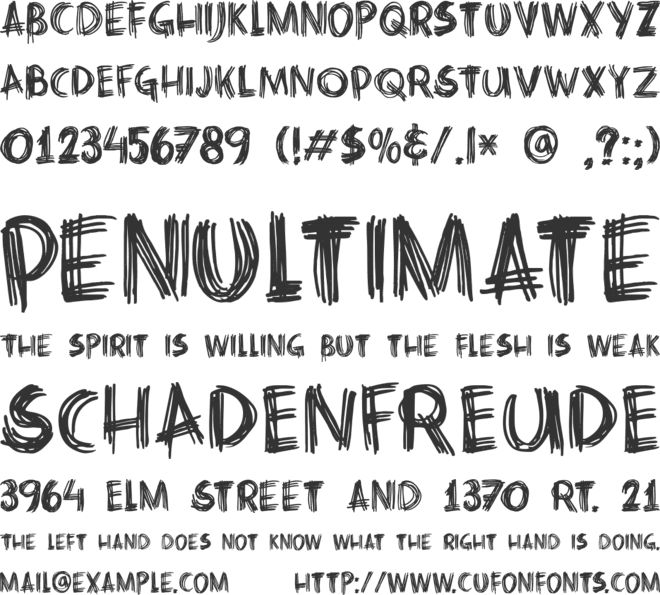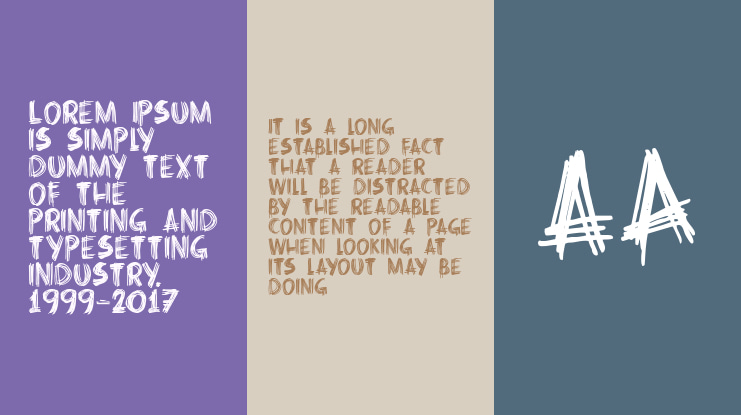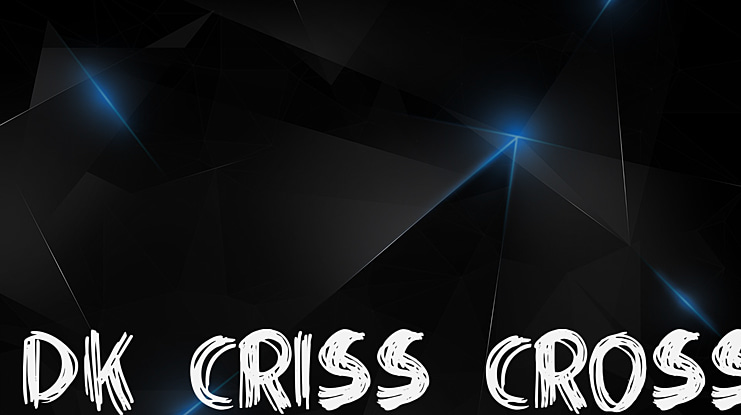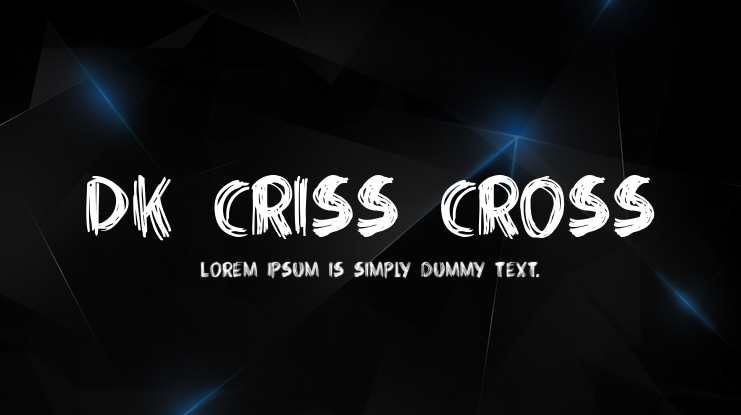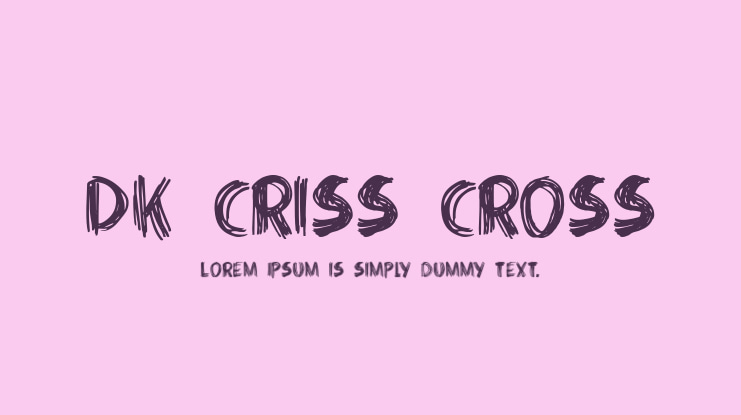
DK Criss Cross Font
A rough and yet legible grunge font. This is the demo version; the full version (Calt, Kerning and all diacritics) is also available. Just contact me for more info.